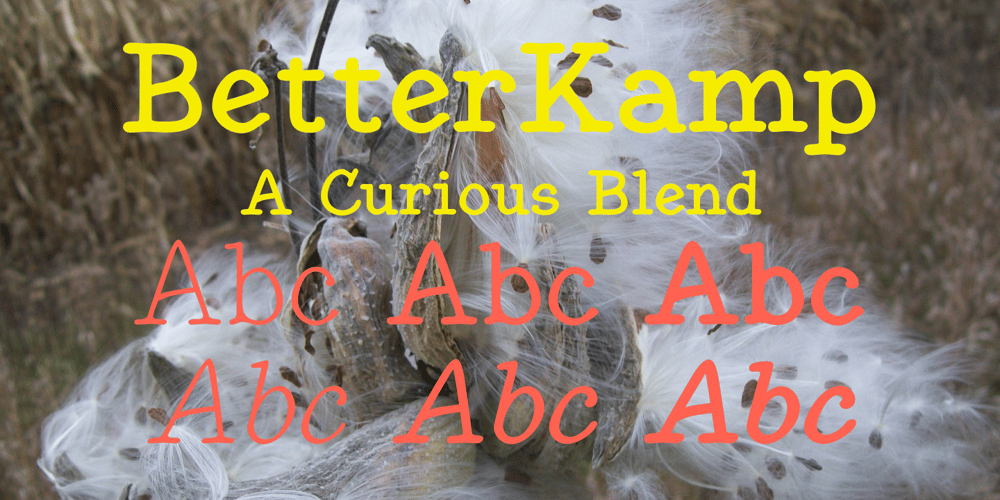
Better Kamp
Better Kamp font
Better Kamp Font Family was designed by Robert Schenk and published by Ingrimayne Type. Better Kamp contains 6 styles and family package options. BetterKamp was originally constructed in 1995-6. It was not constructed to meet any specific purpose but out of curiosity, to see what the result would be if two quite different faces were blended. KampIngriana is the offspring of BetterTypeRight, which has characteristics of a typewriter face without the monospacing, and KampFriendship, which mimics a serifed face drawn by hand.The original blending had many oddities that I did not clean up until 2020 when I also added the semi-bold weights. BetterKamp lacks polish and elegance, but it is very readable at small point sizes.